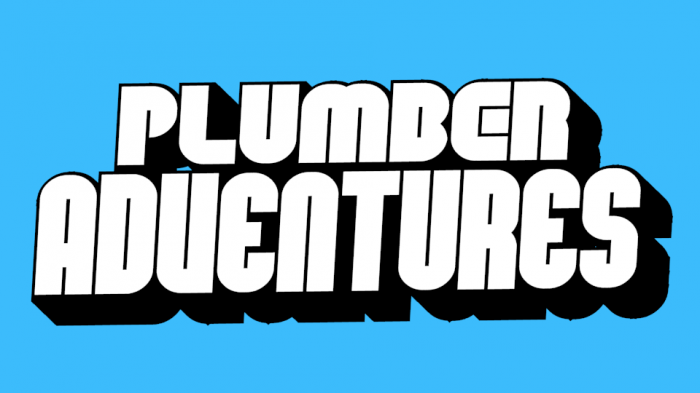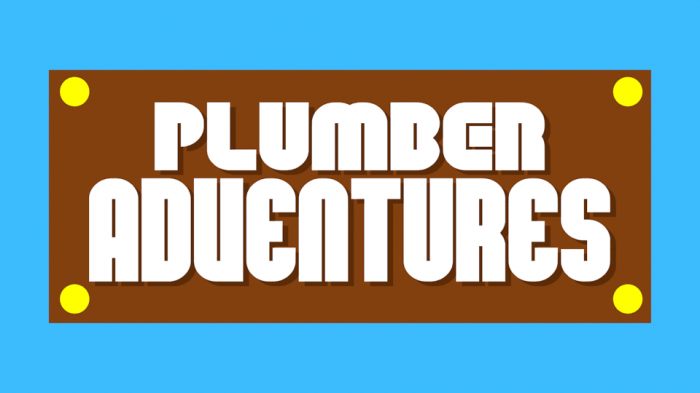
NSMB Font Remake is a font almost identical to the one used on New Super Mario Bros titles.
Edit: The Font now has bigger counters and a new name!
Decided to look for a font like this, but the one I found previously didn't have those lower letters that yours has. You did a stellar job with this font.
Would you do a version of this font with lowercase letting like in Super Mario Bros. Wonder?